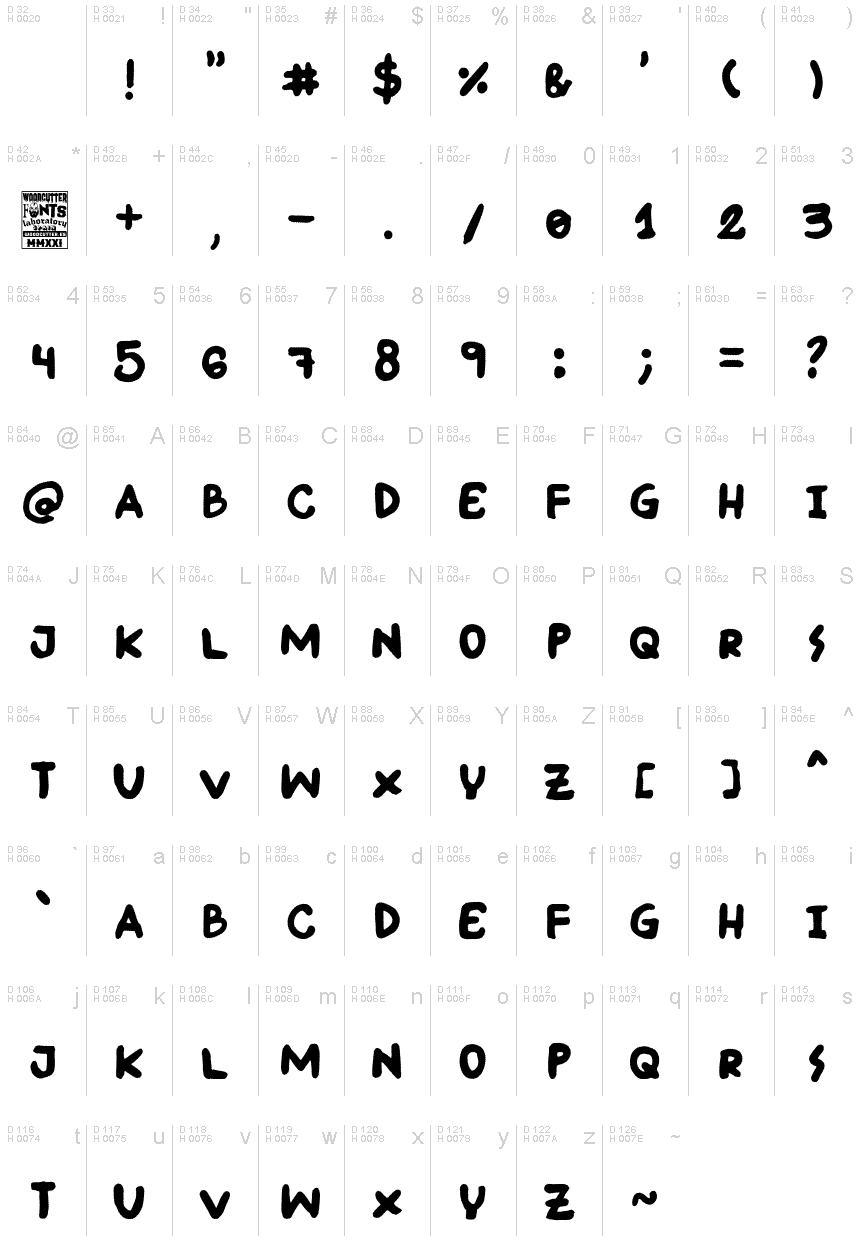
Little Caudillo
Meet Little Caudillo, the creation of Woodcutter Manero, a bold and playful display font that brings your designs to life. With its cartoon style, this typeface is perfect for injecting personality into children's books or comic strips. Its bold weight demands attention and makes it ideal for eye-catching headlines or signage. Whether you're designing a fun logo or creating promotional materials for a lively event, Little Caudillo has got you covered. Add some whimsy to your projects and let Little Caudillo do the talking!